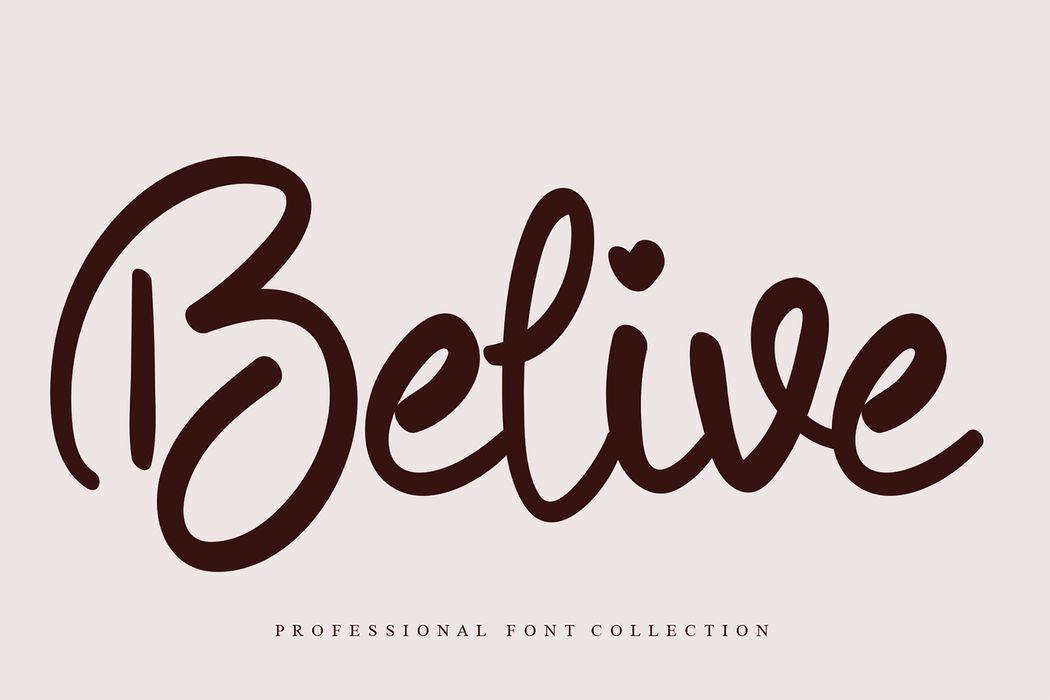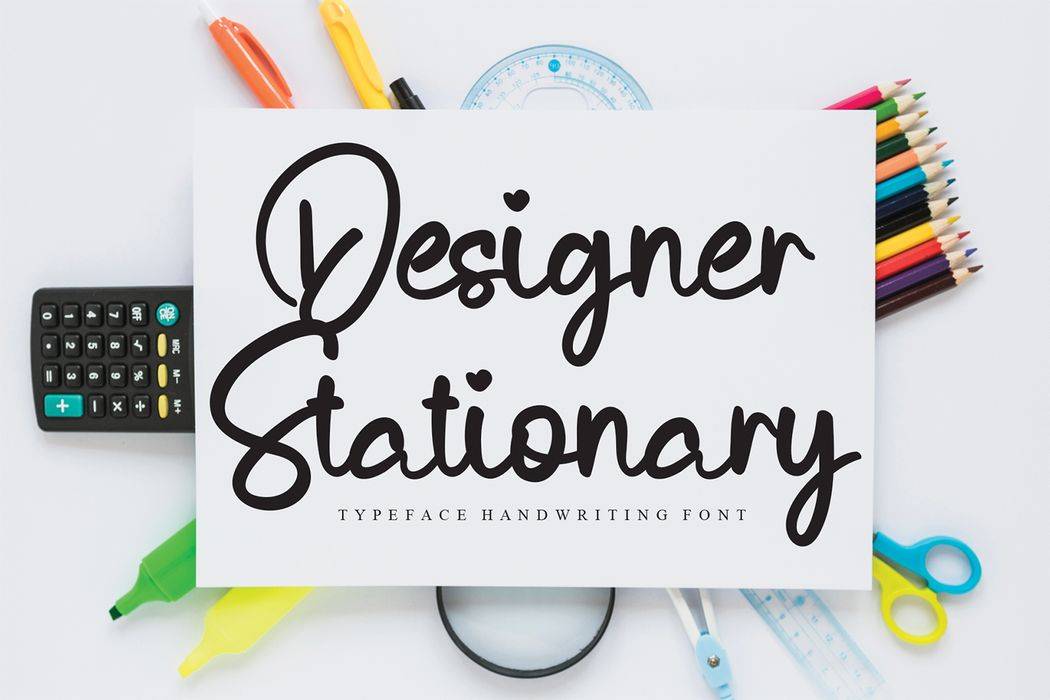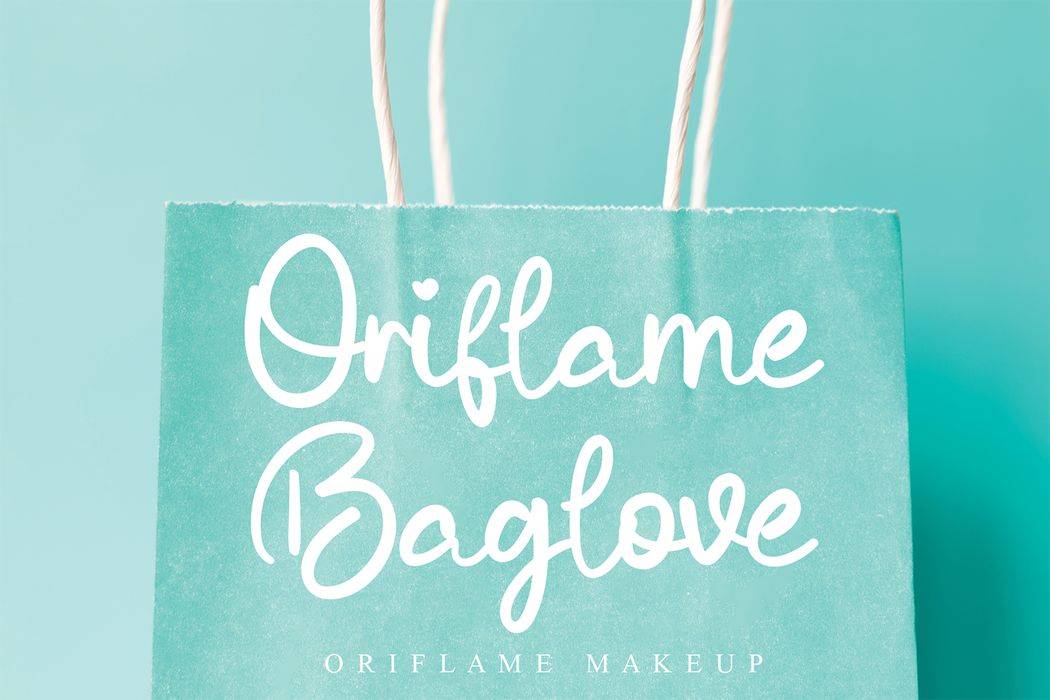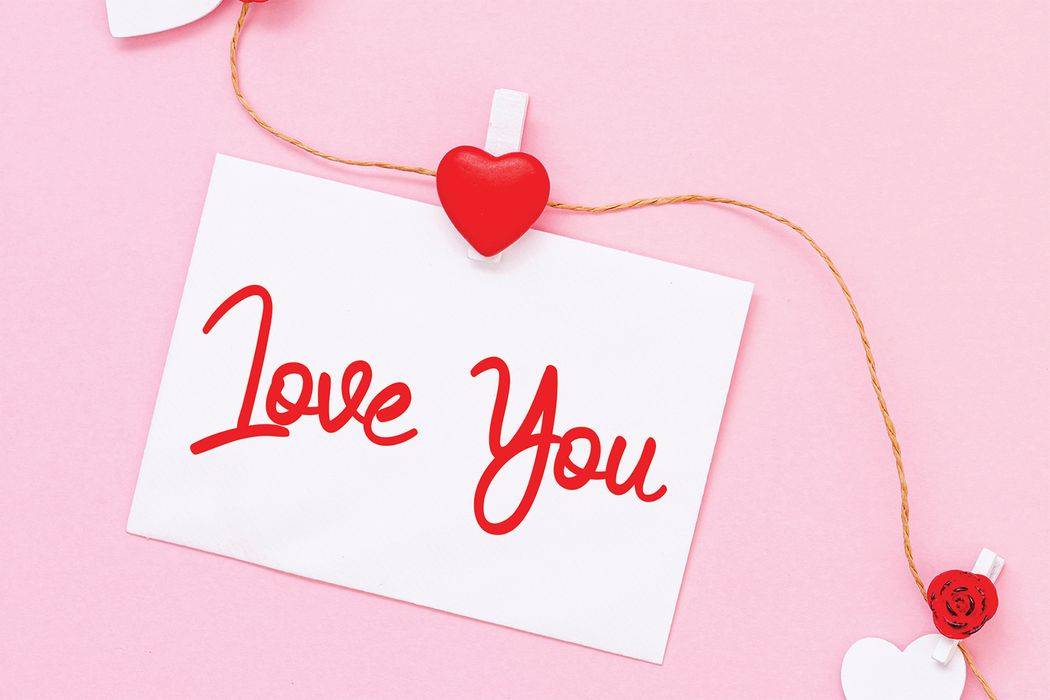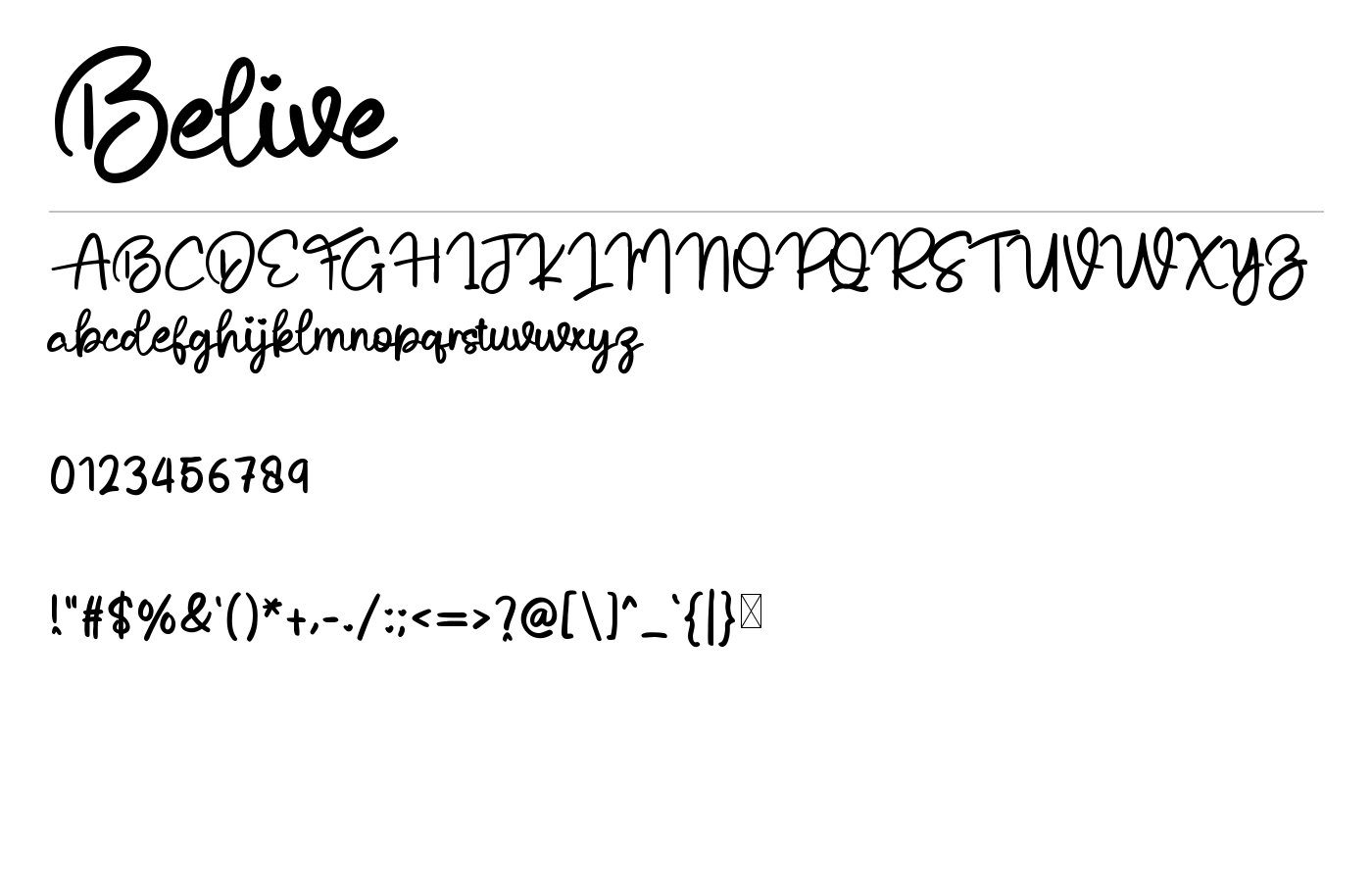
Belive Font is a playful and casual script typeface with a handwritten feel, featuring smooth, flowing strokes and a moderate x-height that enhances readability. Its clean, consistent line weight and rounded letterforms give it a friendly and approachable personality, making it ideal for creative branding, invitations, and informal digital or print projects. This font works well where a personal, warm touch is desired without sacrificing clarity and style.
Belive Font